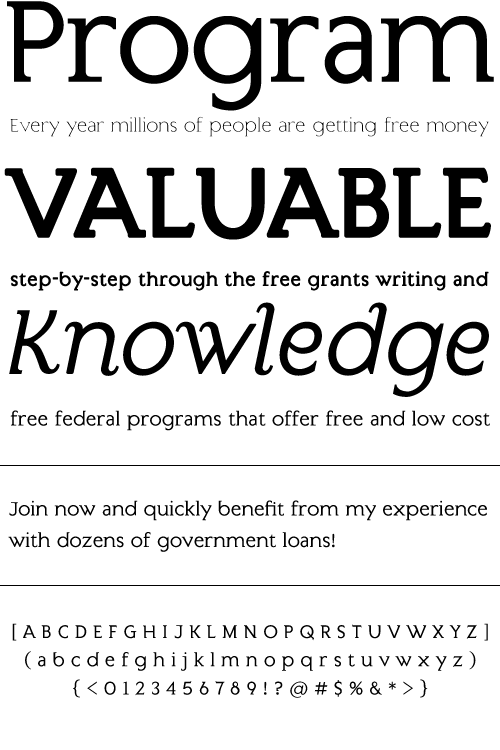
Invoice
Mixing the vertical to horizontal stroke weight ratio of a sans-serif font while adding serifs is the idea that inspired this face. The result is a typeface with unique display features that is also quite readable at text sizes.